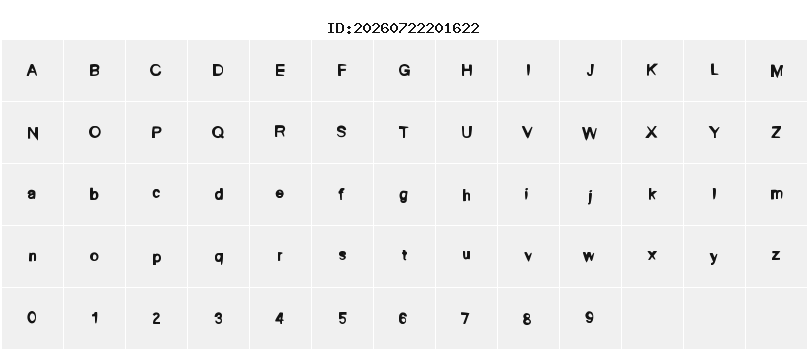
• Font Name: MyDay
• Full Font Name: MyDay
About MyDay.ttf
MyDay.ttf is a modern, elegant sans-serif font designed for ultimate readability and visual harmony. Perfect for branding, headlines, web design, and print materials.